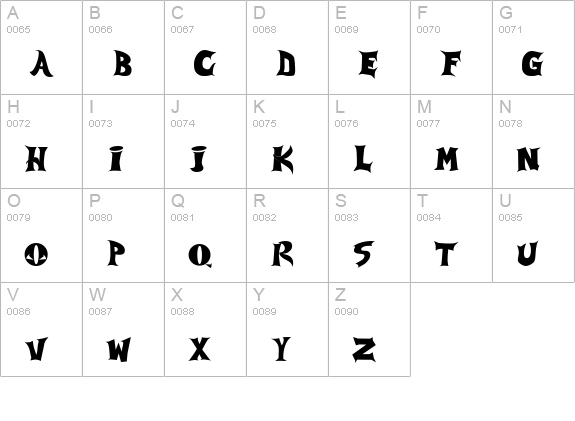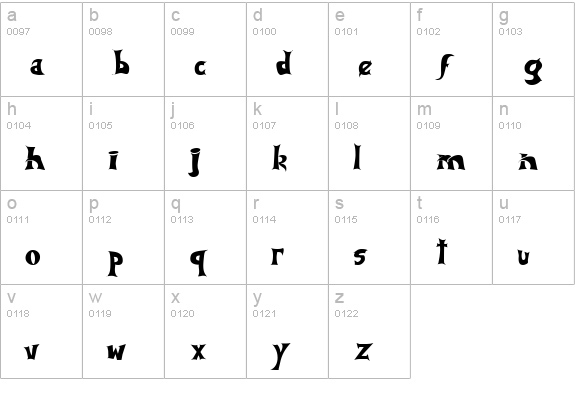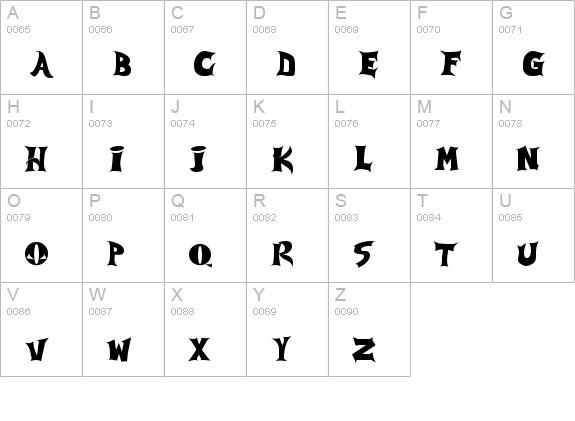
Spawned Font Details
Spawned font is a stunning and versatile typeface that is sure to bring a touch of elegance and sophistication to any project. With its sleek and modern design, this font is perfect for a wide range of applications, including logos, branding, headlines, and more. What sets Spawned font apart from the rest is its unique and eye-catching letterforms. Each character is beautifully crafted with intricate details that add a sense of depth and dimension to your designs. Whether you're looking to create a bold and impactful statement or a subtle and refined look, Spawned font has got you covered. But what makes this font even more enticing is that it is free! That's right, you can download Spawned font for absolutely no cost at FontsMarket.com. This means that you can add this stunning font to your collection without breaking the bank. Not only is Spawned font free, but it is also incredibly easy to use. With its wide range of weights and styles, you have the freedom to experiment and create unique and personalized designs. Whether you're a professional designer or just starting out, Spawned font is a must-have tool in your creative arsenal. So why wait? Head over to FontsMarket.com and download Spawned font today. With its captivating design and cost-free availability, you'll be able to elevate your projects to new heights and leave a lasting impression on your audience. Don't miss out on this amazing opportunity to enhance your designs with the elegance and sophistication of Spawned font.